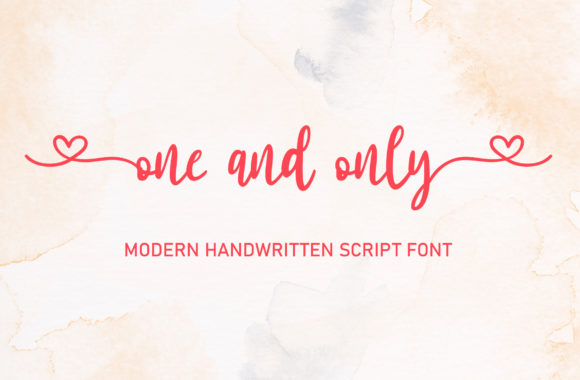
In a world where individuality reigns supreme, your words carry the power to evoke emotions, paint pictures, and capture hearts. Meet One and Only, the exquisite script font that transforms your creative expressions into captivating masterpieces.
Born from the passion of Fontysia, One and Only is not just a font; it's an artistic journey that invites you to embrace your unique voice. With its enchanting heart swashes, this modern handwritten font whispers stories of love, joy, and heartfelt connections.
Step into a realm where your wedding invitations blossom with elegance, your stationary art dances with charm, and your social media posts radiate an irresistible allure. One and Only is the perfect companion for those who seek to leave an indelible mark on the world through the power of words.
Picture a wedding invitation adorned with One and Only's graceful strokes, inviting guests to a celebration filled with love and laughter. Imagine your stationary art adorned with its whimsical flourishes, adding a touch of magic to everyday correspondence. See your social media posts come alive with its enchanting personality, captivating your audience with every scroll.
With One and Only, you unlock a world of creative possibilities. Unleash your inner artist and let your words dance across the page, leaving a trail of beauty and inspiration. Embrace the uniqueness of your voice and let One and Only amplify your message to the world.
This font is more than just a collection of letters and symbols; it's an extension of your creative spirit, a tool that empowers you to transform your ideas into tangible works of art. Whether you're a seasoned designer or just starting your creative journey, One and Only is your trusted companion, ready to elevate your projects to new heights.
So, embark on this creative adventure with One and Only and let your words take flight. Fall in love with its authentic feel, let your creativity soar, and leave your mark on the world with a font that's as unique and captivating as you are.